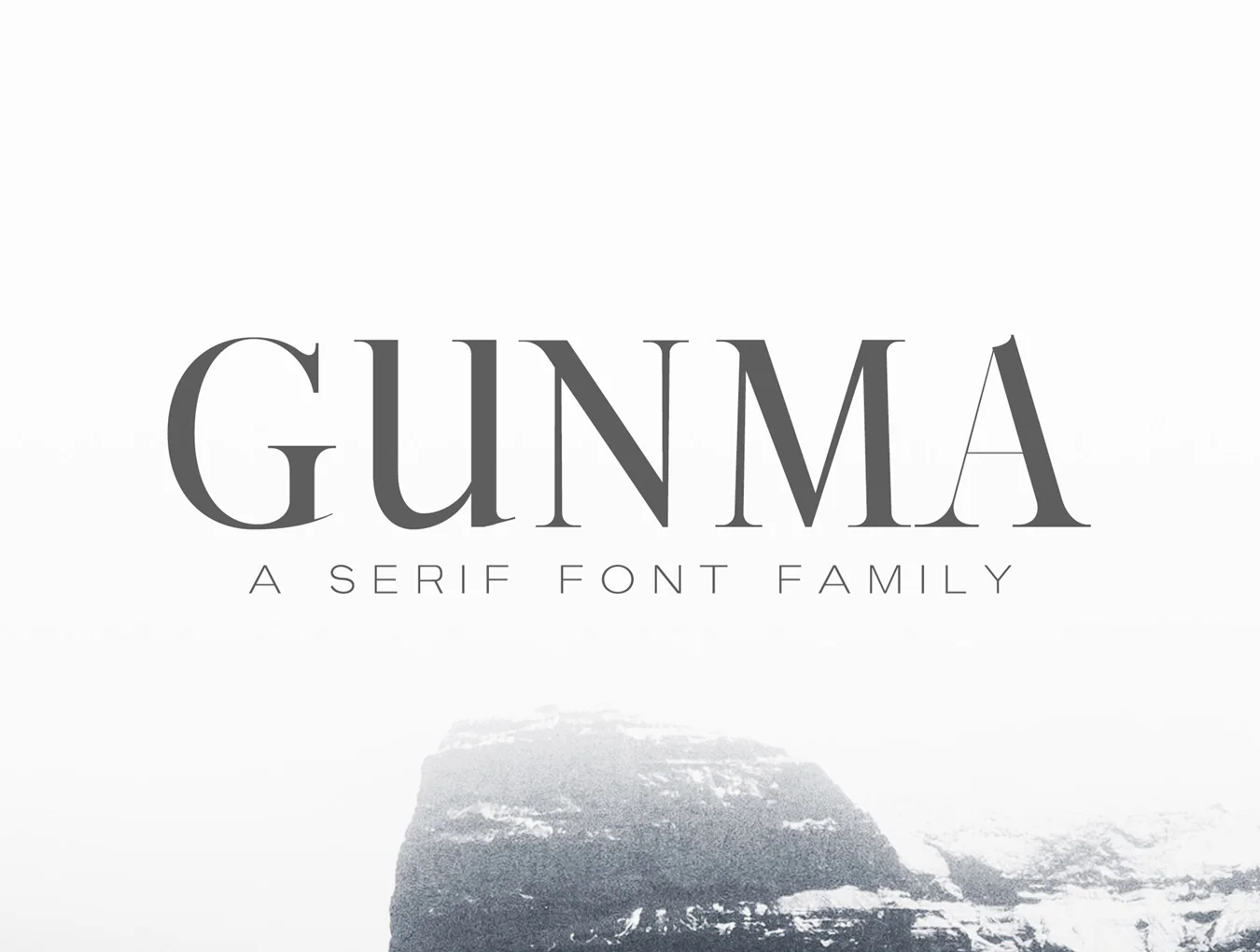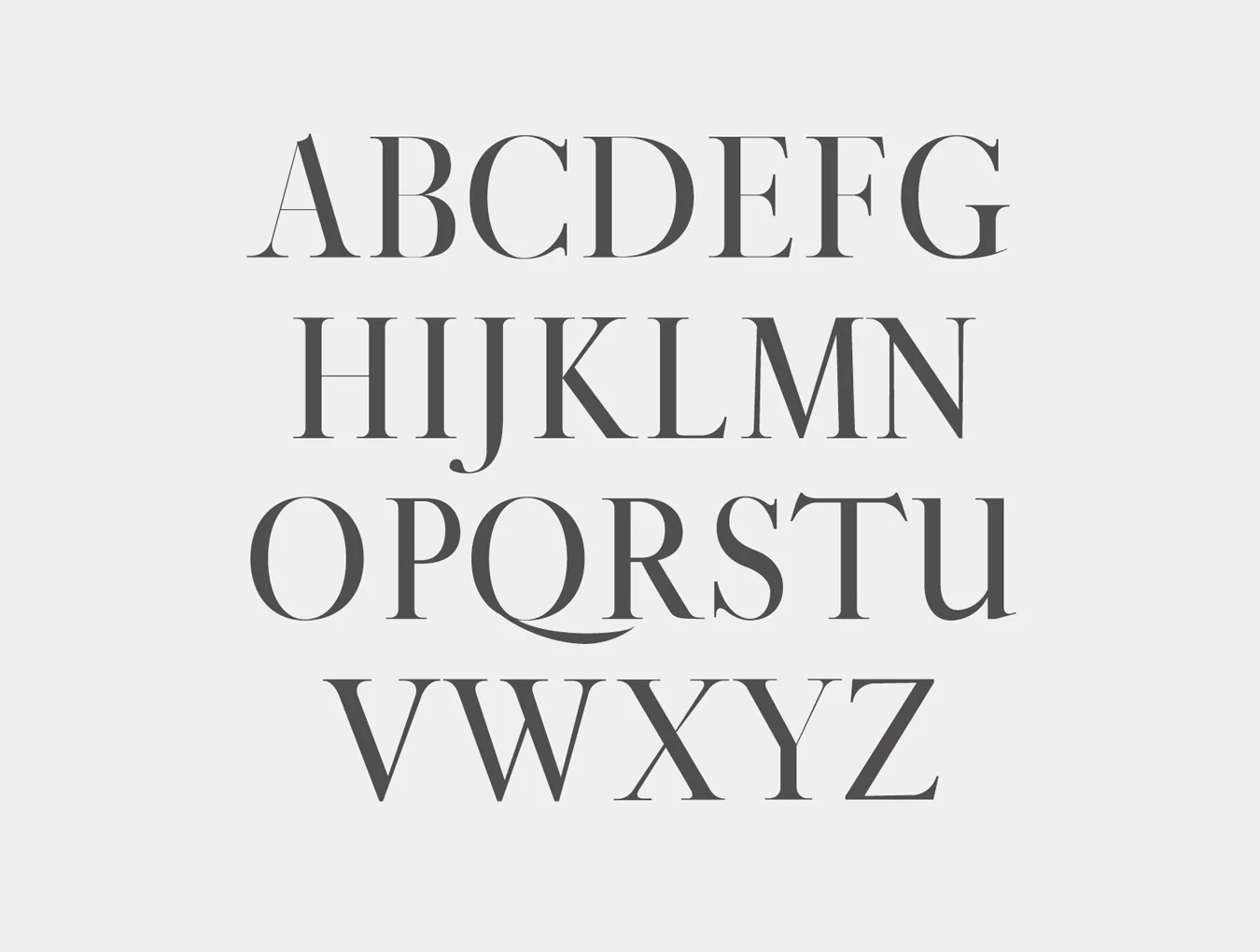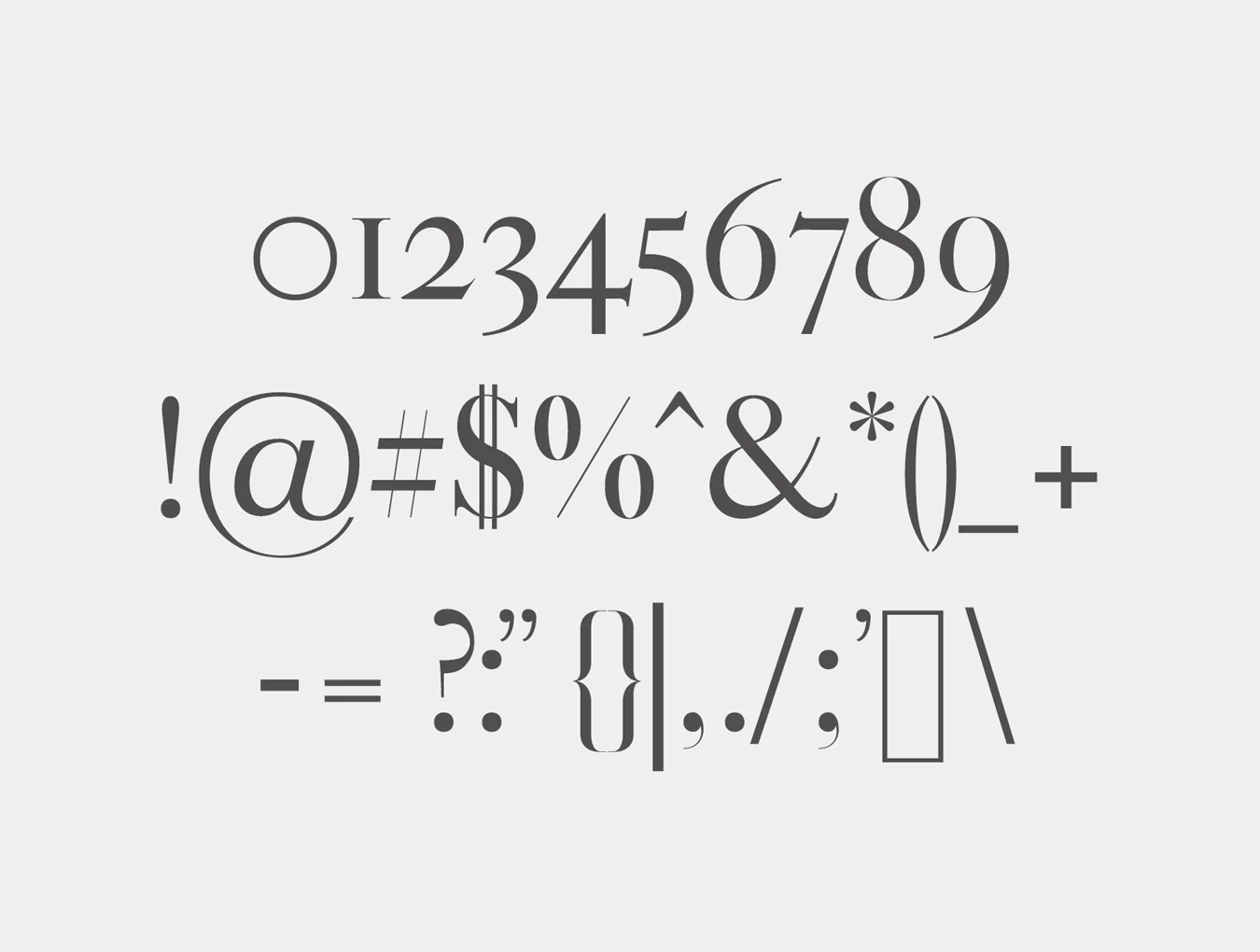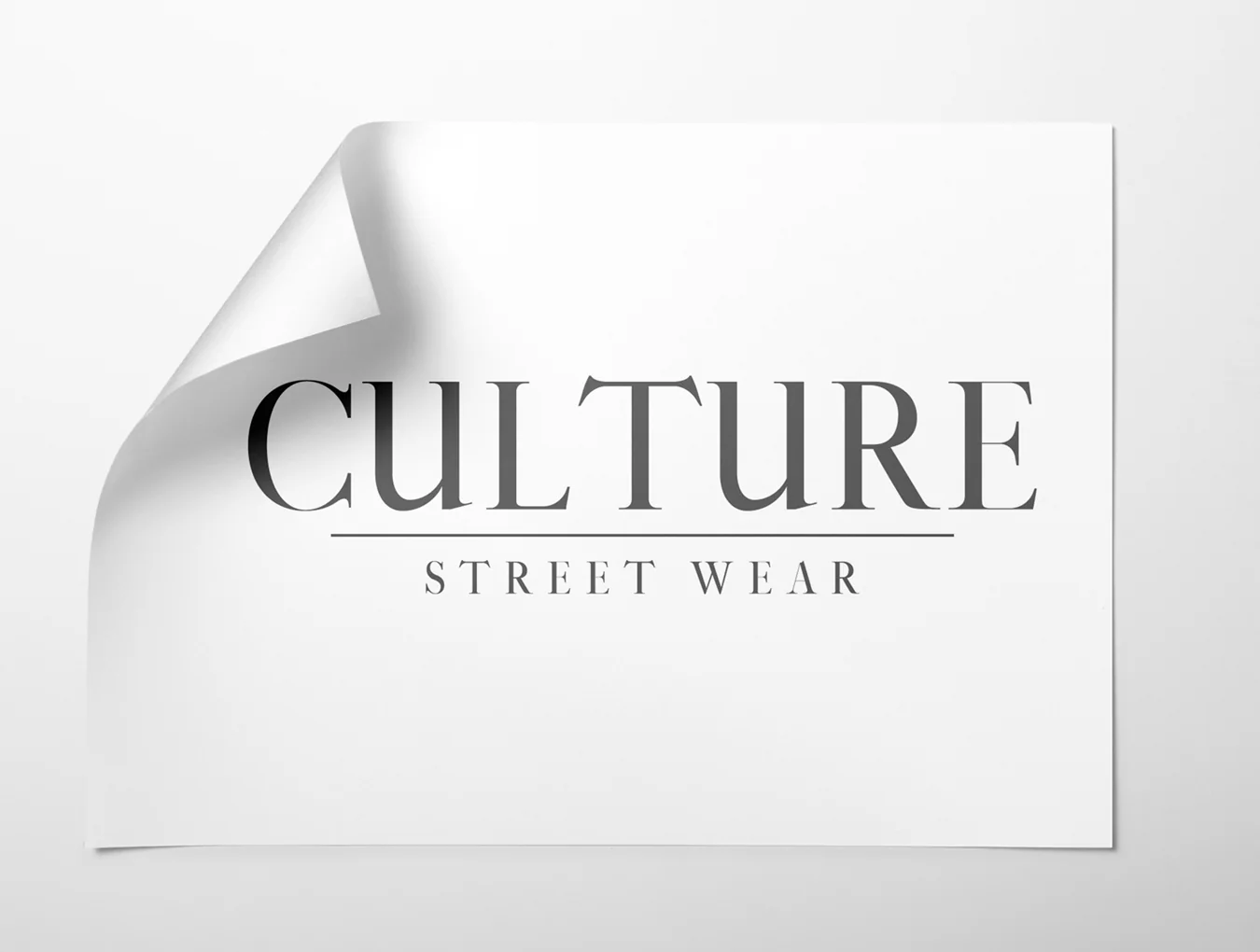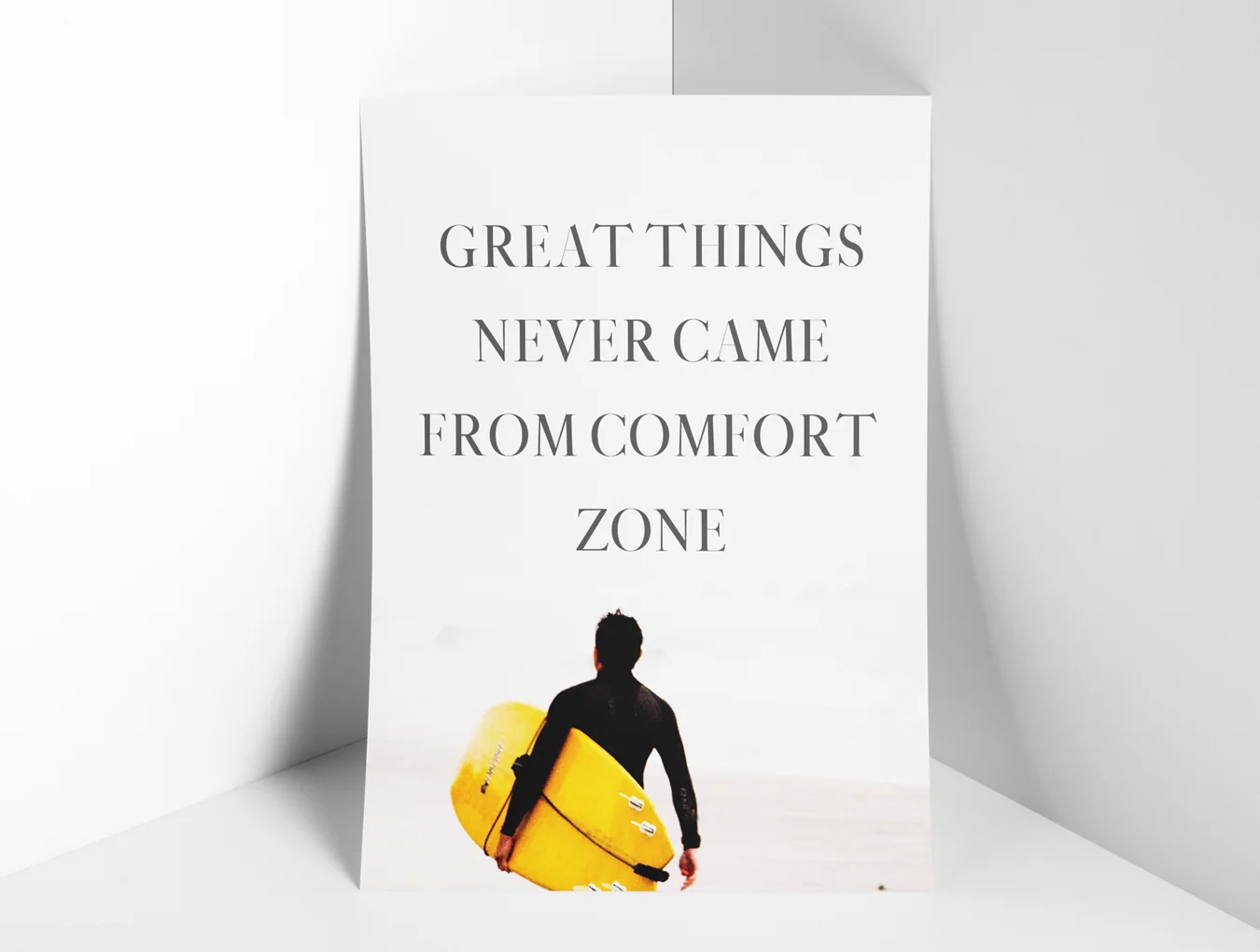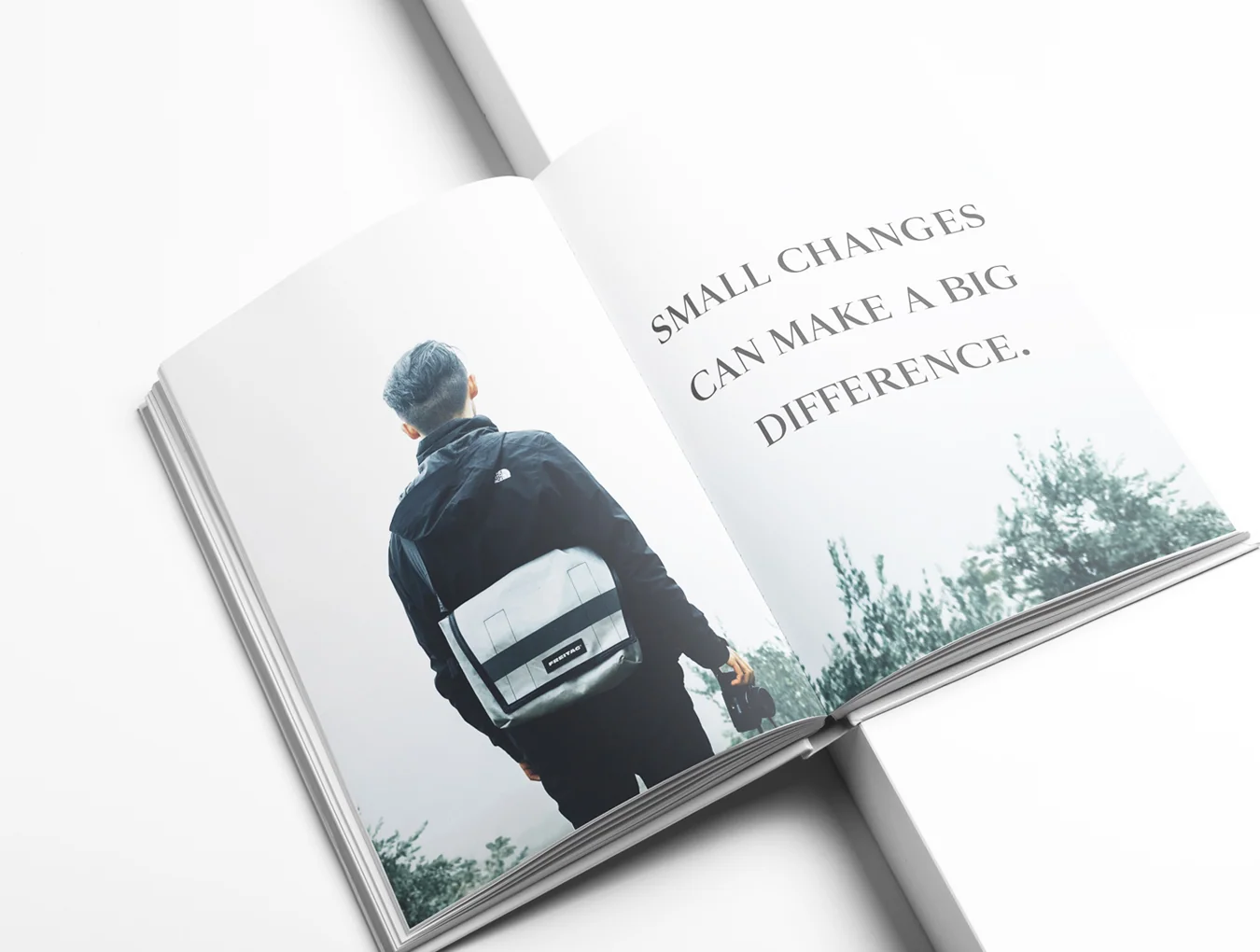
Gunma Serif Family
Serif-style font face
Set of 265 characters
Regular, Light, Round, Smooth and Bold weights
Gunma Serif Font Family Pack is a striking serif typeface available in 5 weights. It includes essential glyphs plus non-English characters, making it suitable for headlines, posters, branding, packaging, presentations, logos, quotes, titles, magazine headers, web layouts, ads, invitations, books, and many creative projects.